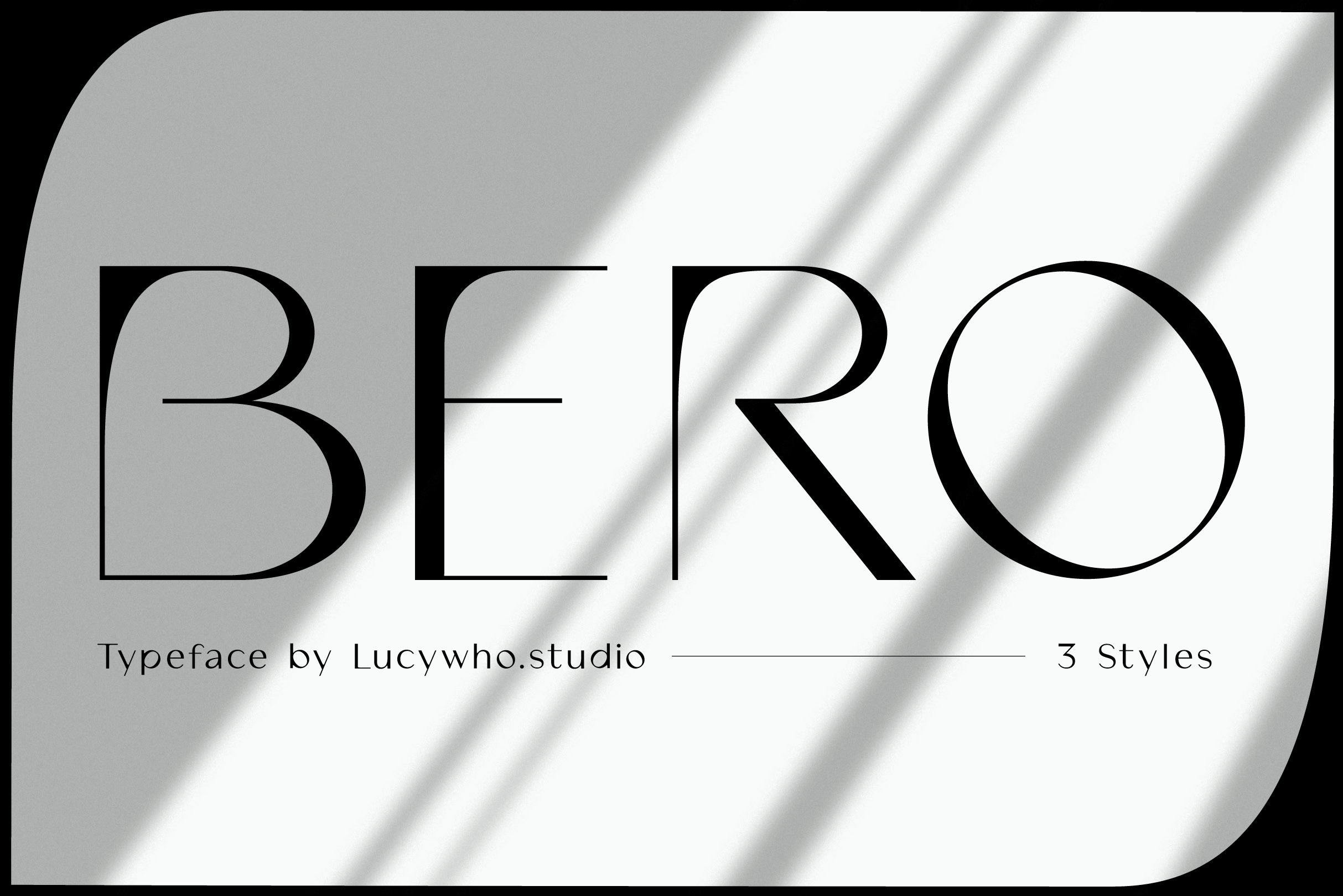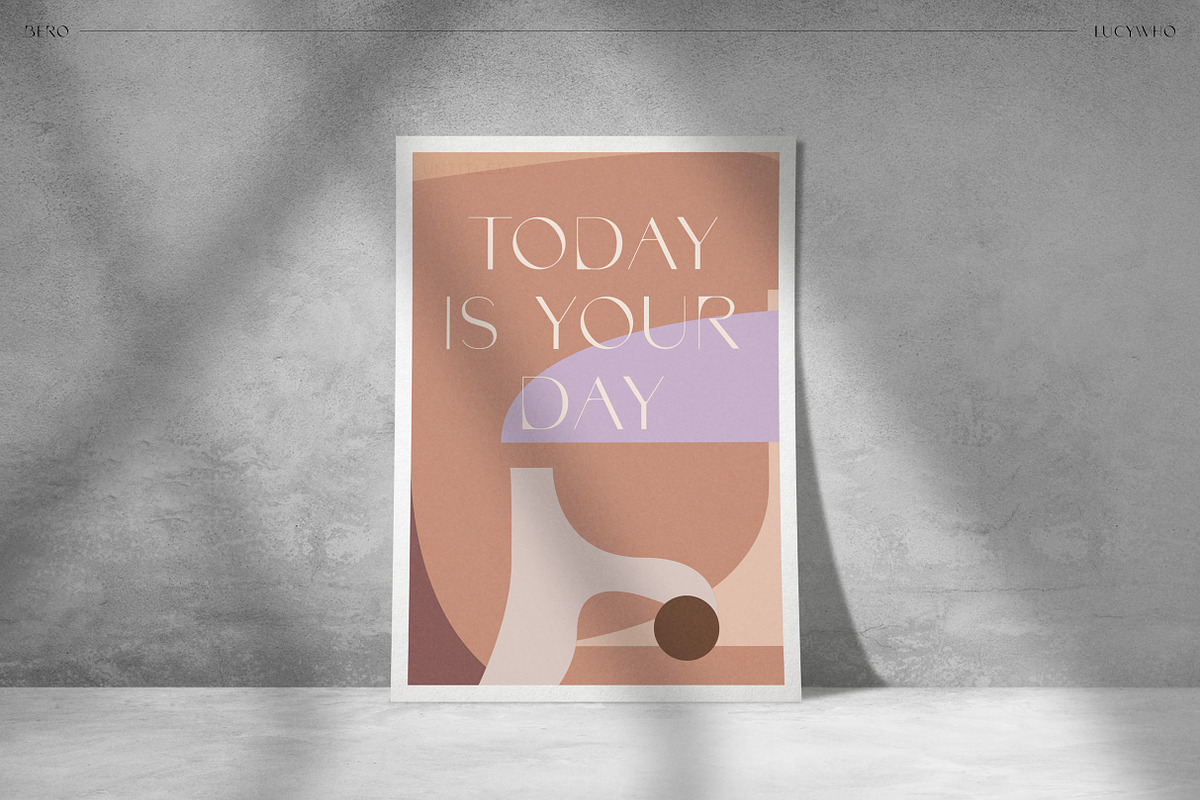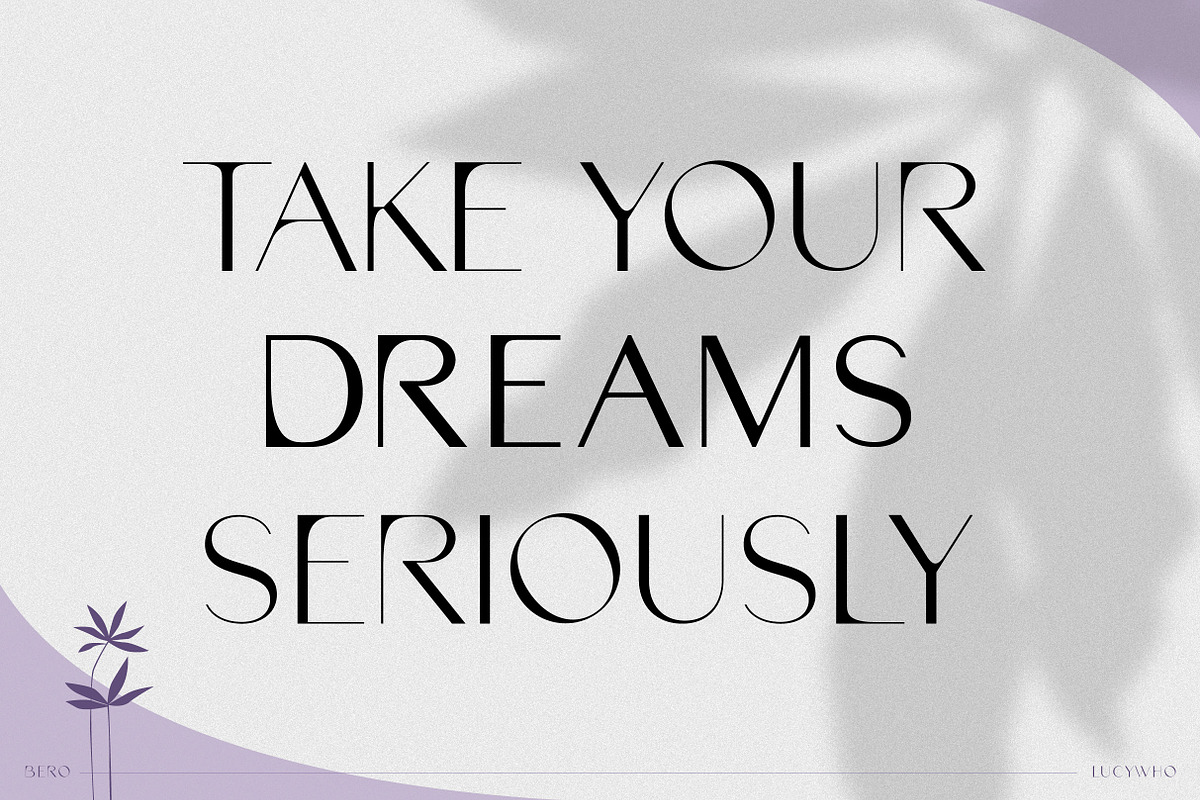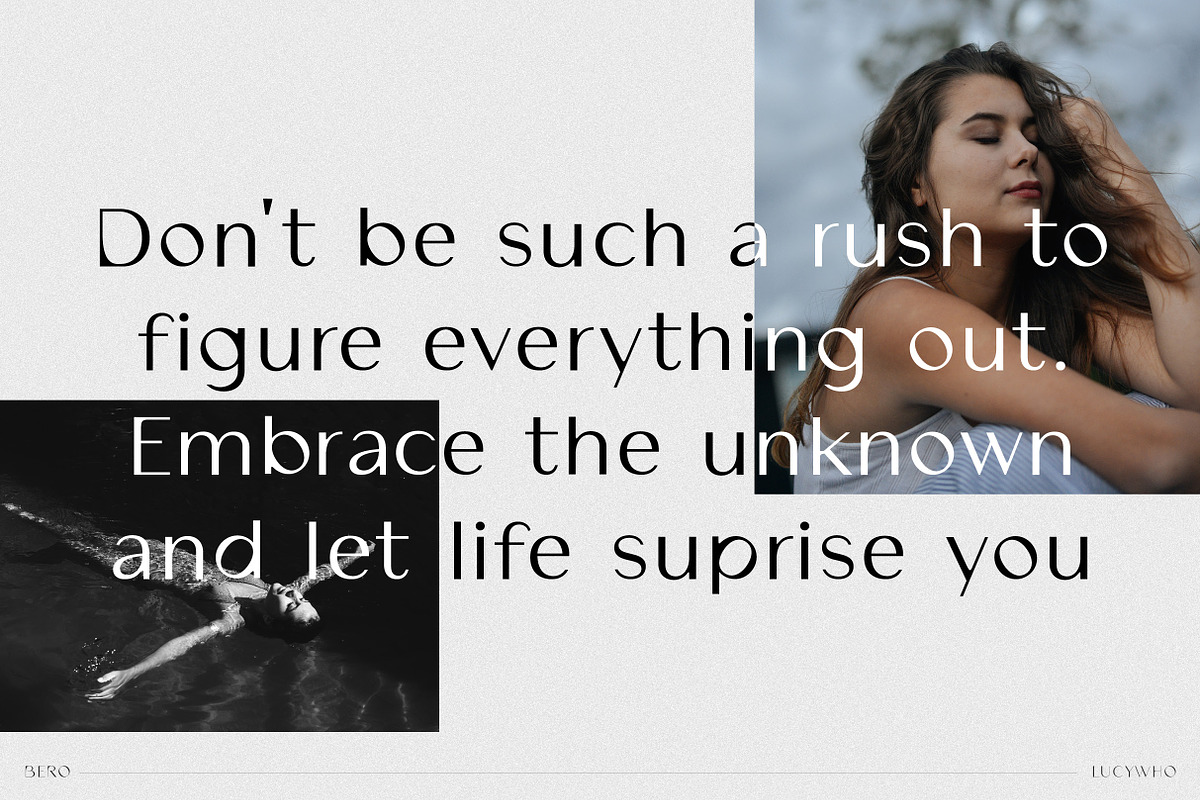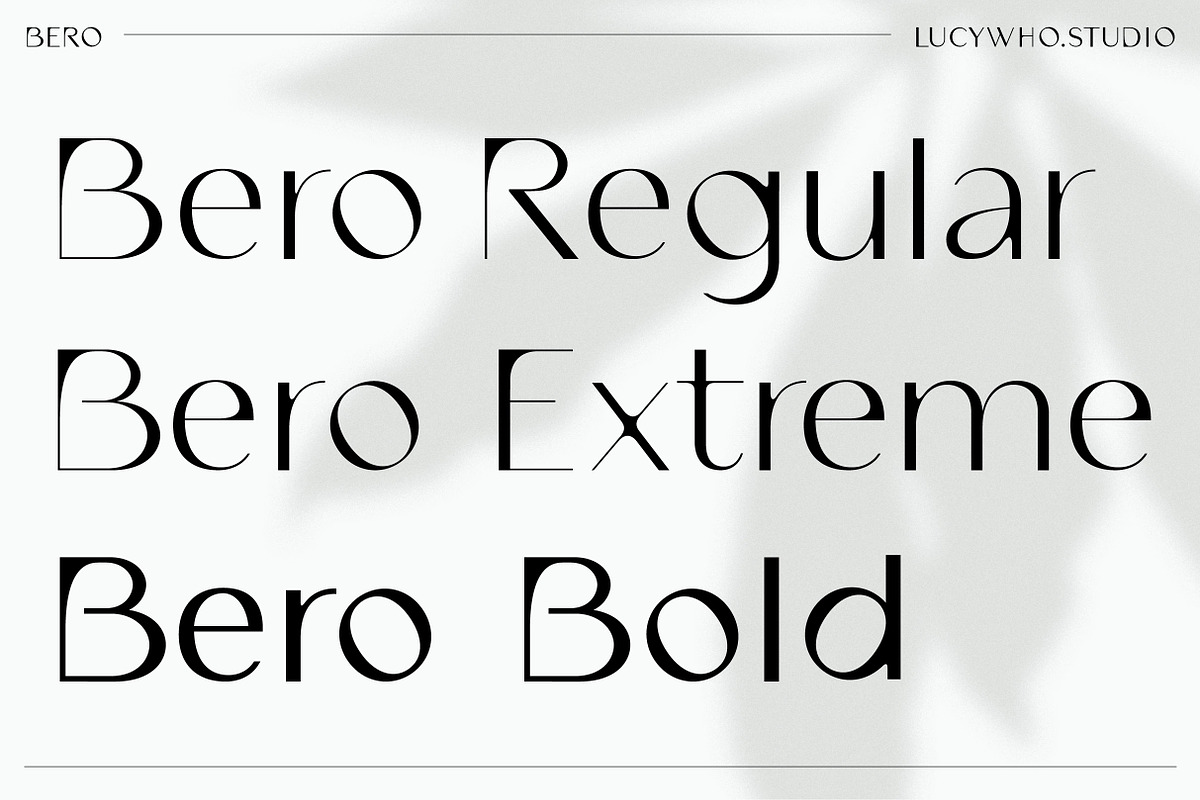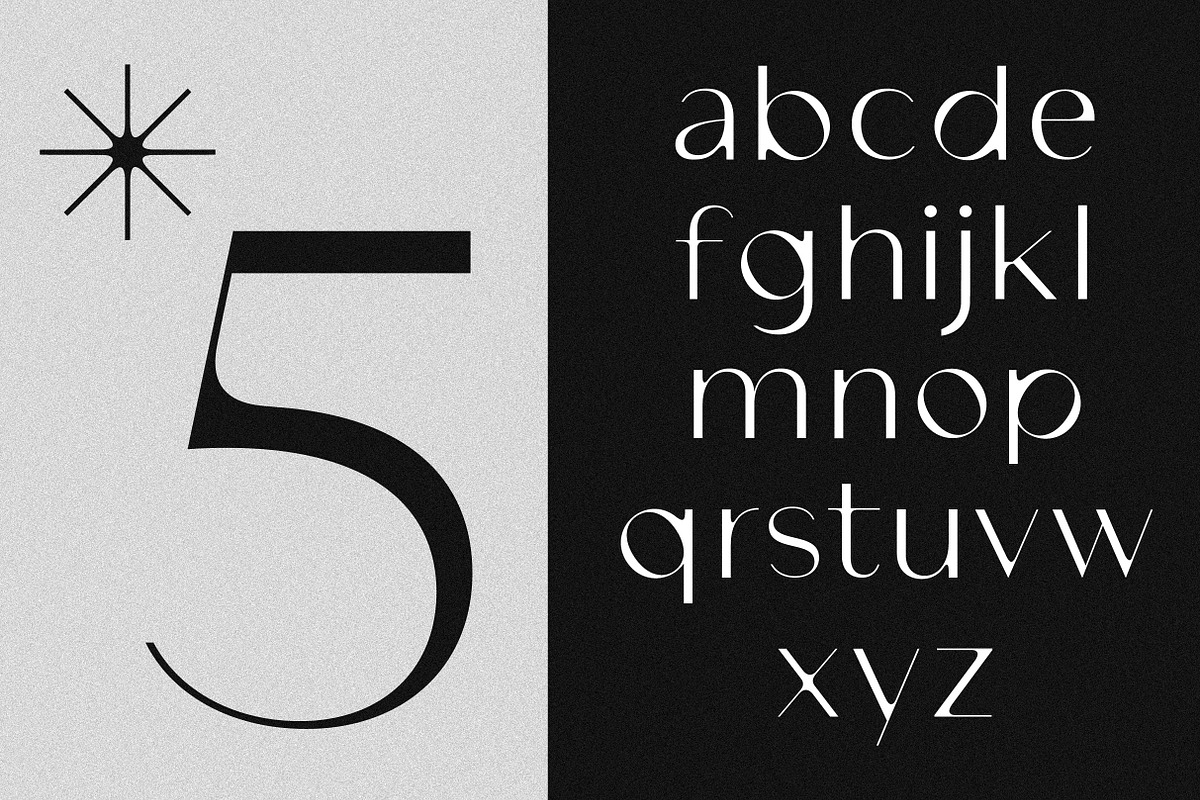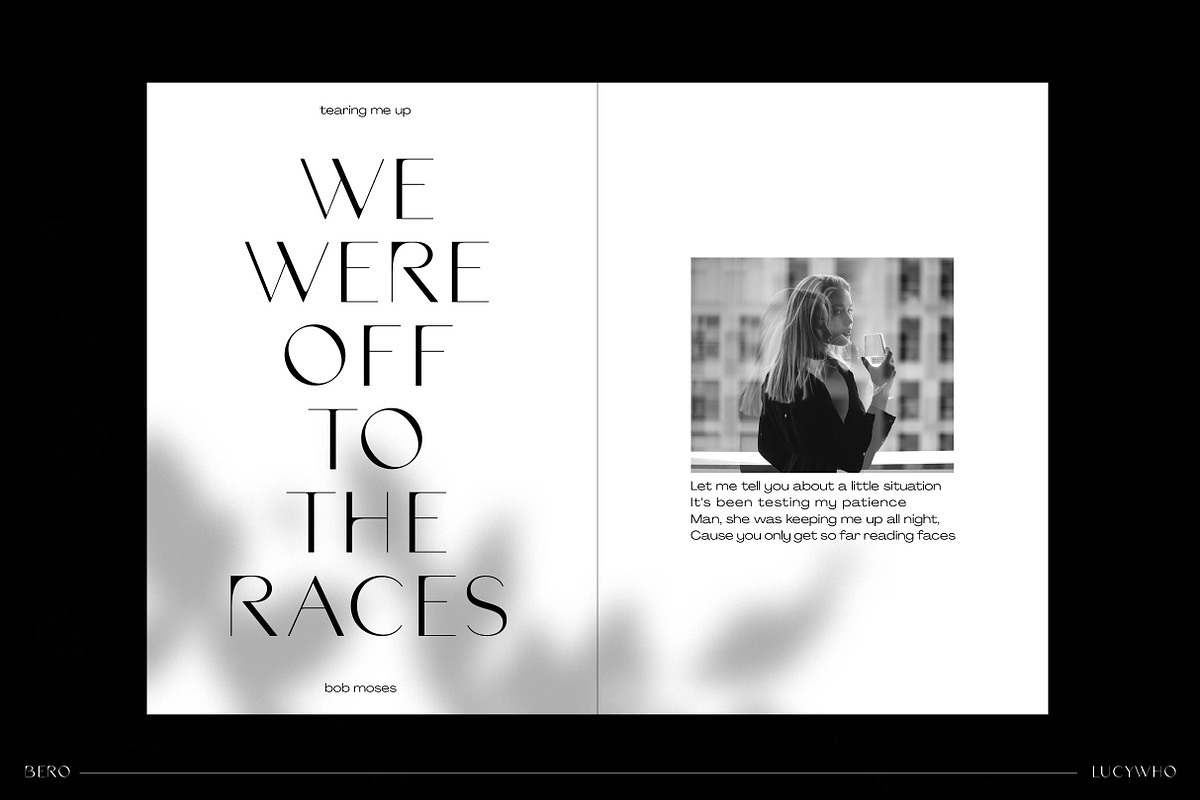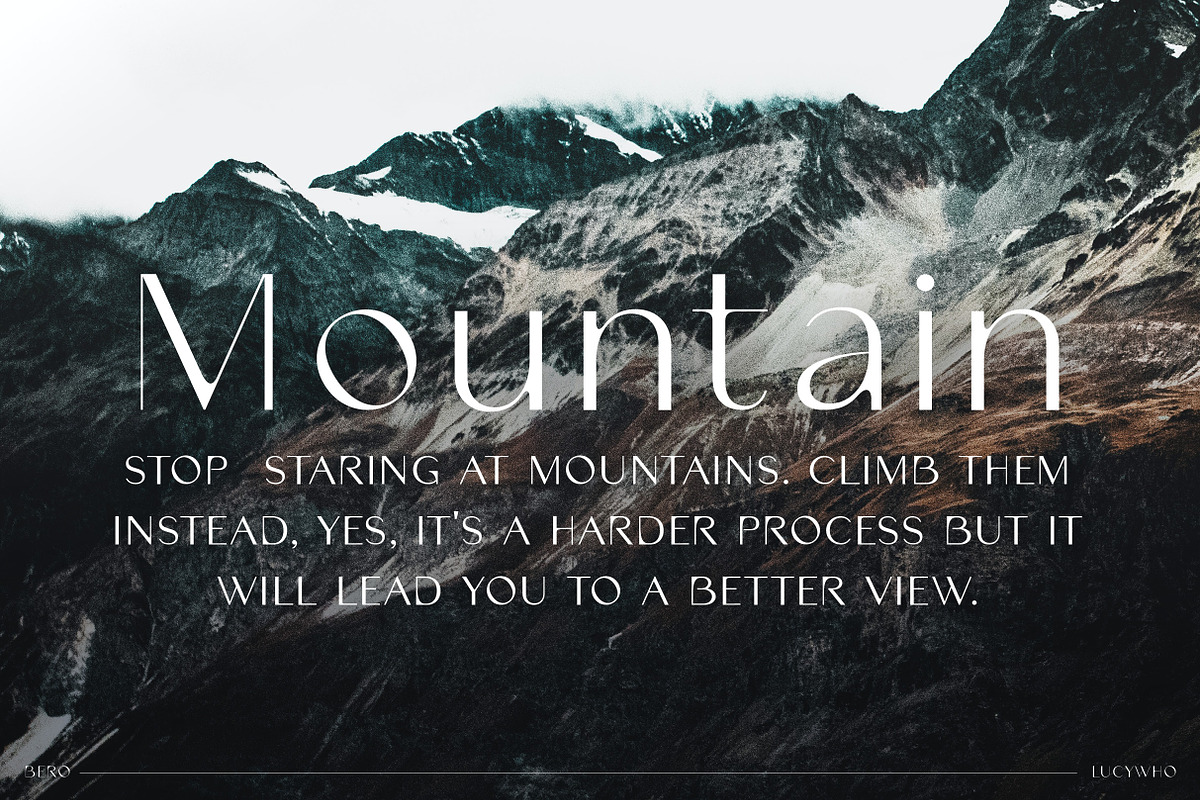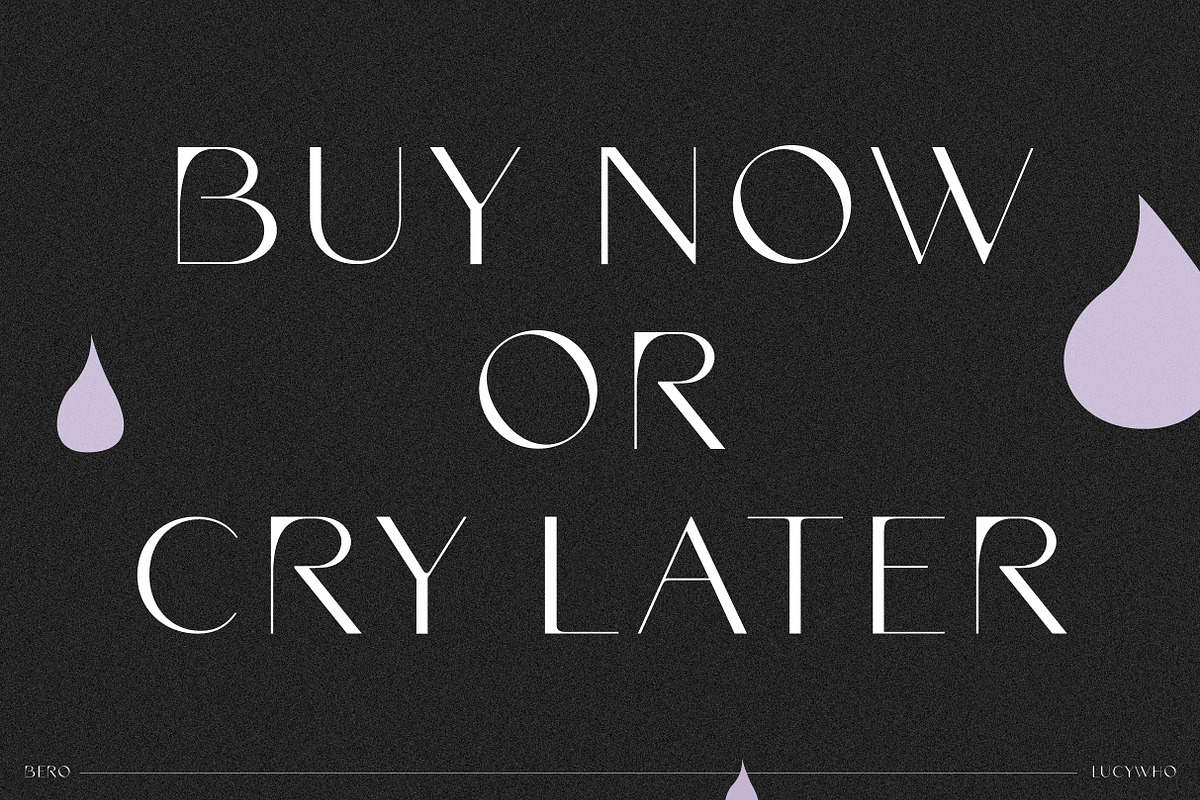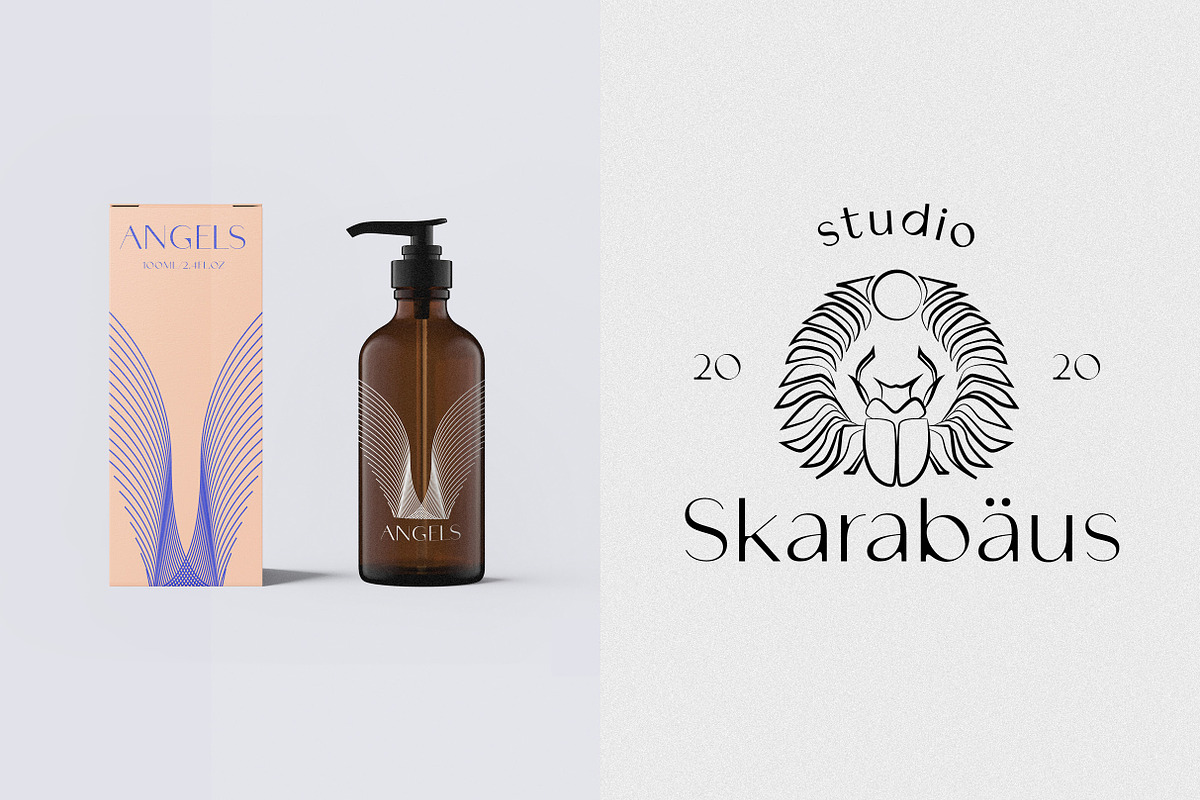
BERO Modern Unique Typeface
BERO – An elegant sans serif font
BERO is clean and modern. This typeface provides a timeless look for any design. Use BERO for branding, magazine design, logo design, headlines, posters, packaging, cards or your wedding invitation.
Regular, Bold & Extreme